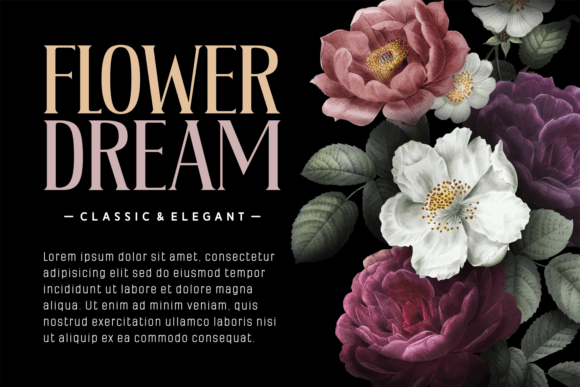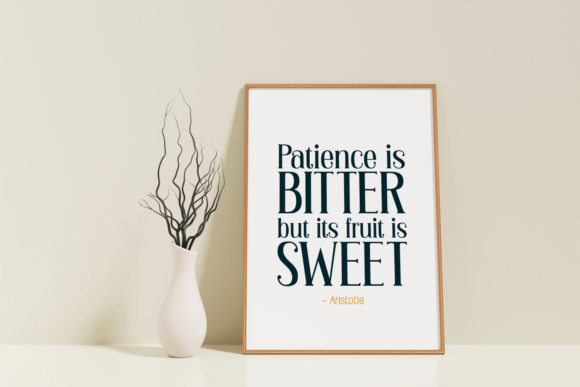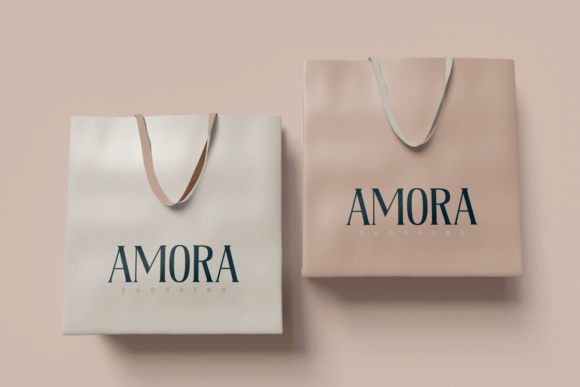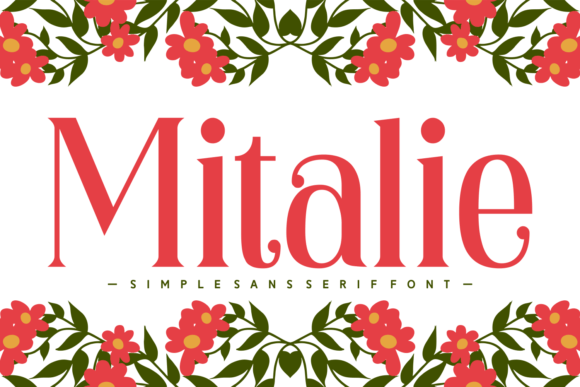
Introduction to Mitalie Font
Mitalie is an attractive serif font that has a classic look and feel, with smooth curves and fine, delicate details.
It’s perfect for headlines, logos, and other stylish designs .
Mitalie Font offers exceptional quality and versatility, making it a valuable addition to your design toolkit. Whether you’re creating for personal projects or commercial use, Mitalie Font delivers professional results.